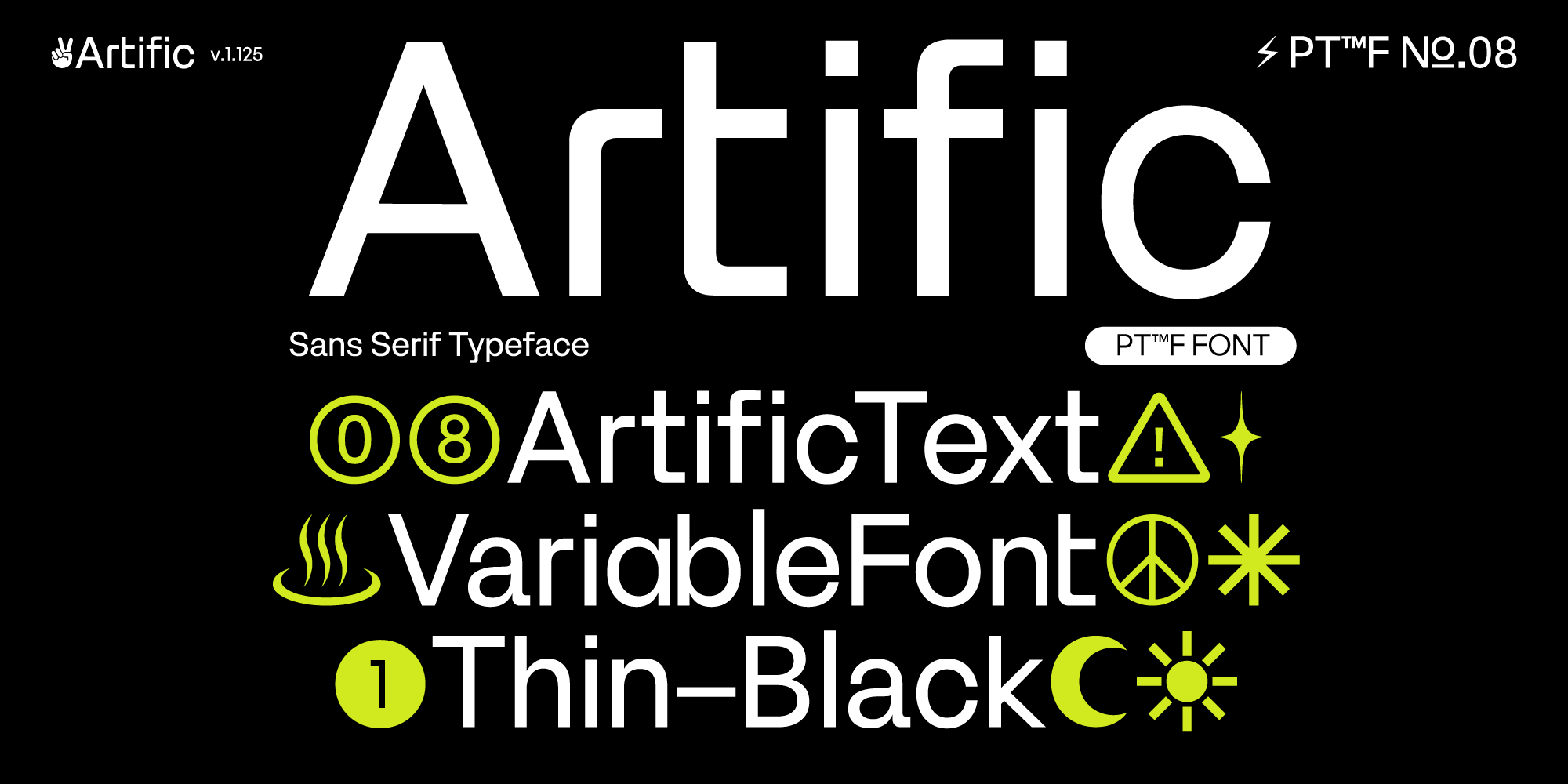
Artific Font is perfect for contemporary art galleries, modern brand identities, tech startup logos, creative agency portfolios, architectural firm presentations, minimalist packaging designs, fashion brand communications, digital art exhibitions, innovation conferences, design studio branding, cutting-edge product launches, and forward-thinking marketing campaigns.
This font is exciting because it embodies the perfect fusion of artistic creativity and technological precision, delivering a sophisticated aesthetic that speaks to both designers and innovators. The carefully crafted letterforms balance experimental artistry with functional clarity, creating typography that feels both avant-garde and professionally polished. Each character demonstrates meticulous attention to contemporary design trends while maintaining timeless appeal that won't feel dated in years to come.
The Artific Font family typically includes regular and bold weights with complete character sets featuring uppercase, lowercase, numerals, punctuation marks, and special symbols. Advanced versions may offer additional stylistic variants, alternate characters, ligatures, and extended language support for international creative projects.
Whether you're developing cutting-edge brand identities, creating contemporary art installations, or designing innovative digital experiences, Artific Font Free Download provides the creative edge and professional quality your project demands. This typeface transforms ordinary text into visually striking statements that capture attention and communicate innovation. The font's versatility makes it suitable for both digital interfaces and print applications, from website headers to exhibition catalogs. Creative professionals will appreciate how this font elevates their work with its distinctive artistic character while maintaining excellent readability across all modern design applications.